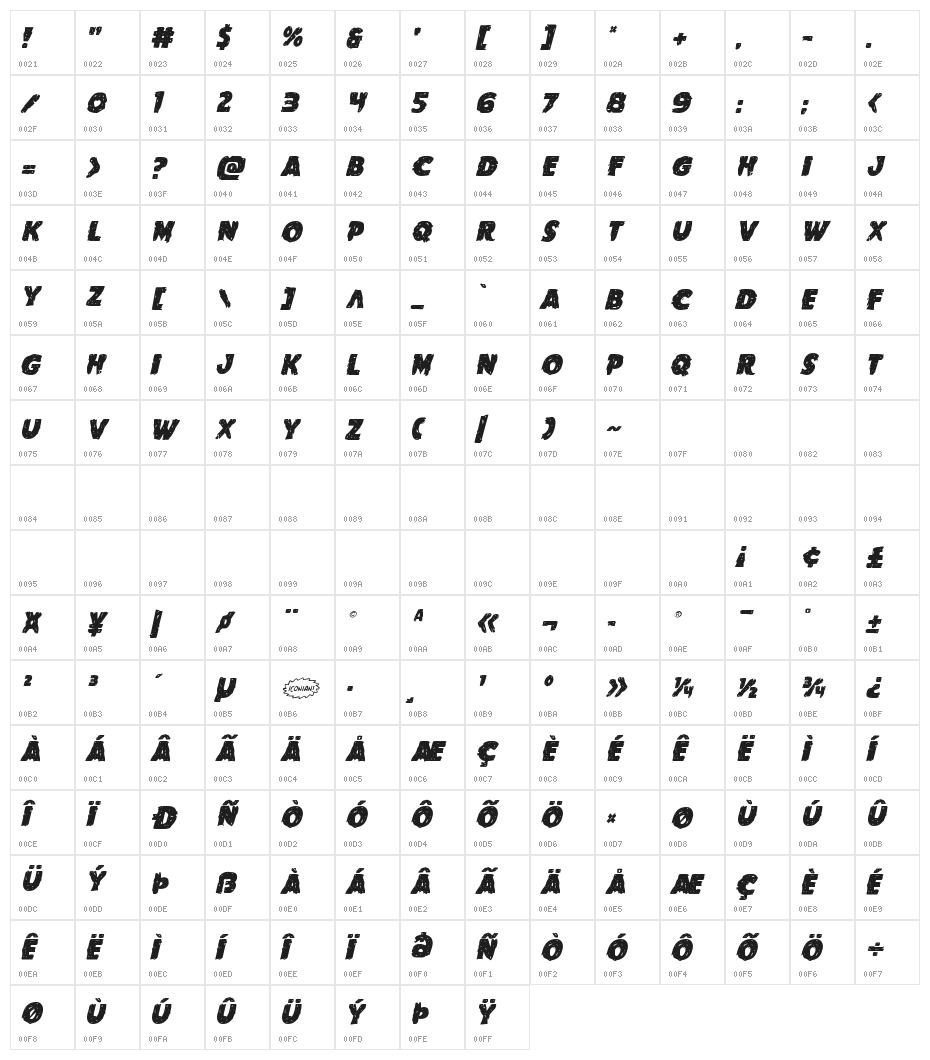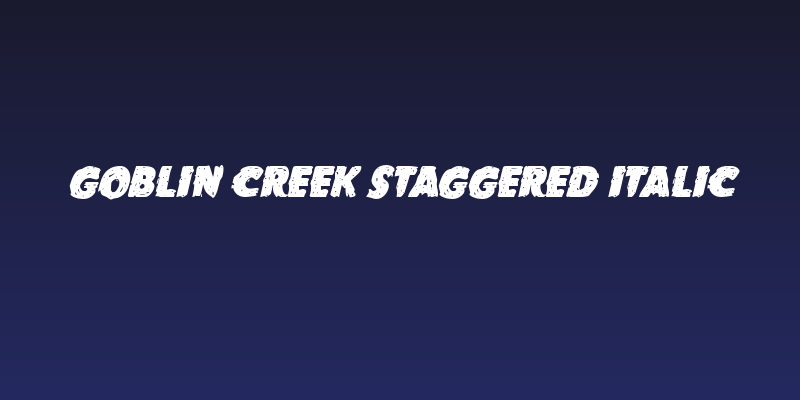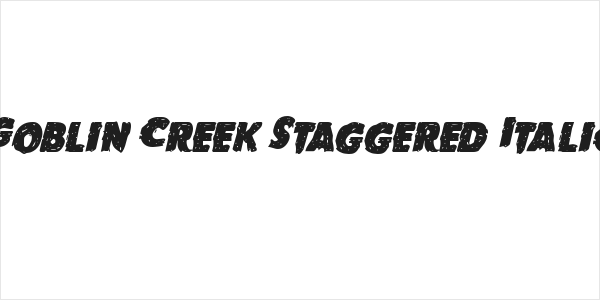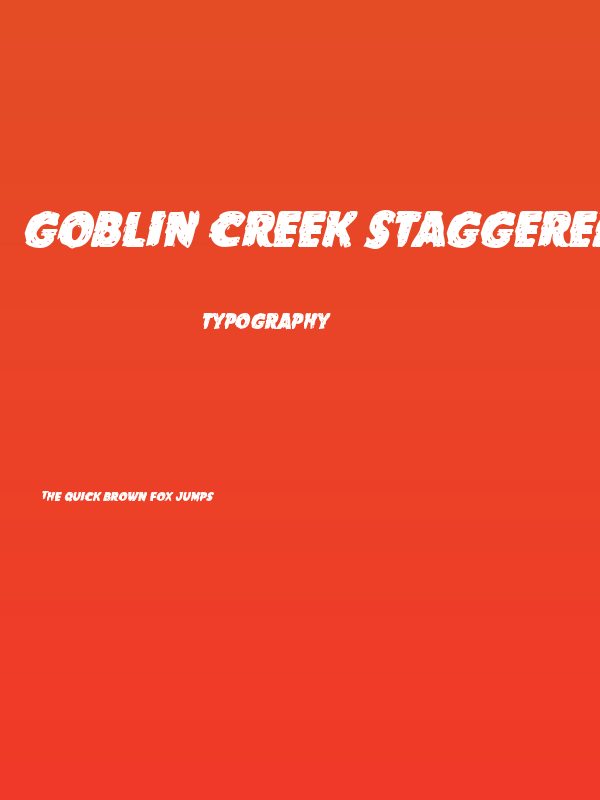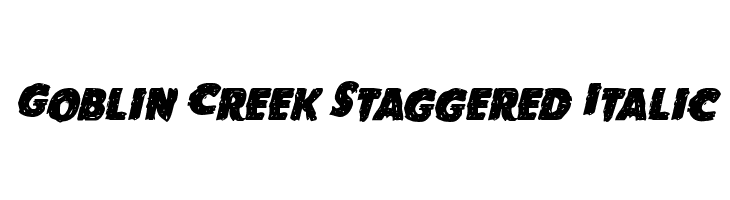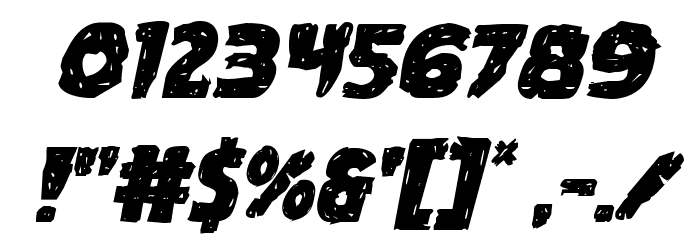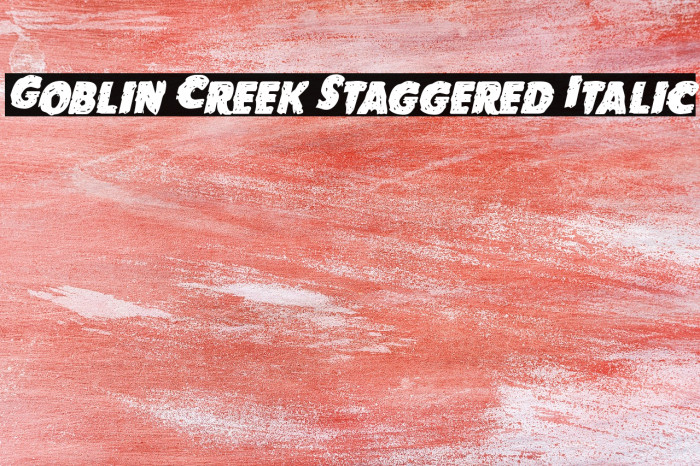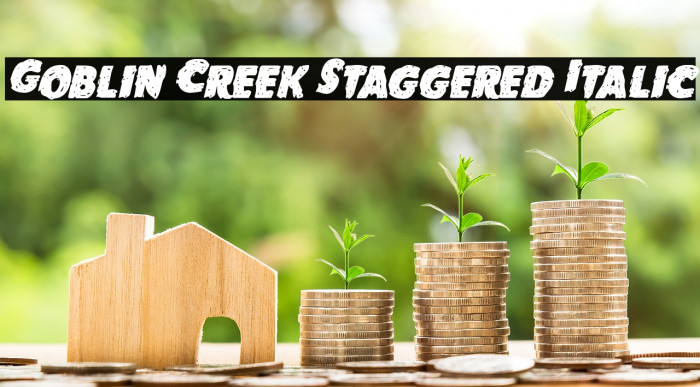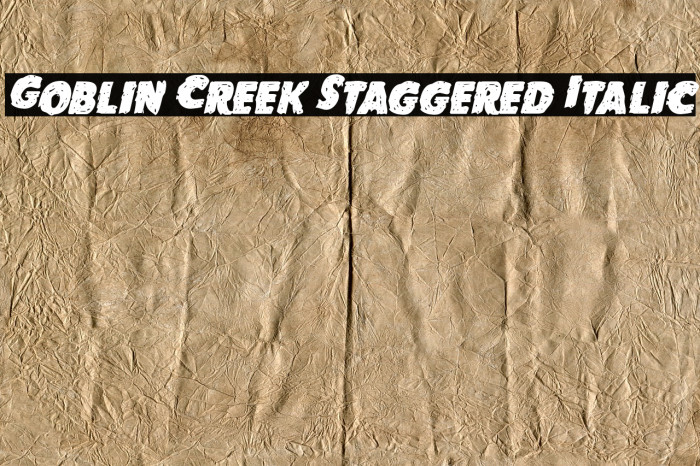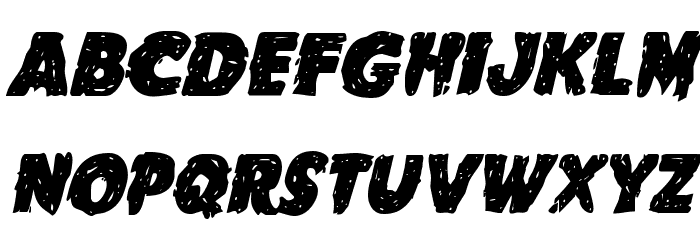
Goblin Creek Staggered Italic Font
Goblin Creek Staggered Italic Description
This font features a bold, staggered design with a distinct italic slant, giving it a dynamic and energetic appearance. The characters are heavily stylized with a rough, textured look, reminiscent of hand-drawn or distressed lettering. The uppercase and lowercase letters maintain a consistent style, with exaggerated curves and angles that add to its unique personality. The numbers and special characters follow the same design principles, ensuring a cohesive look across all glyphs. This font is ideal for projects that require a bold statement or a touch of whimsy.